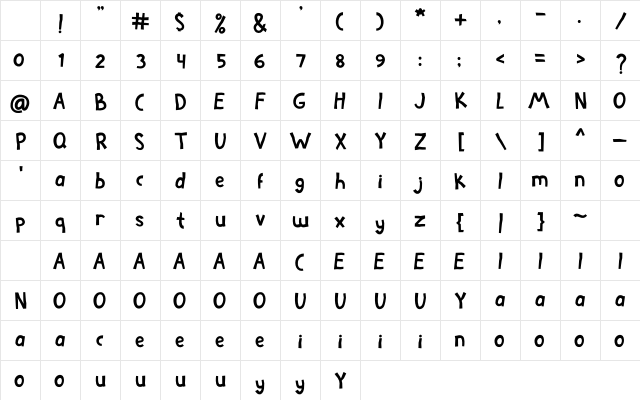
Complete Cafetalk Regular glyph index. Displaying only characters natively supported by Cafetalk Regular font.
Cafetalk is a composed and adaptable typeface that performs quietly and consistently across a wide range of design contexts.
Pro Tip: Use Cafetalk in both headline and body roles to test its range before committing to a single application.